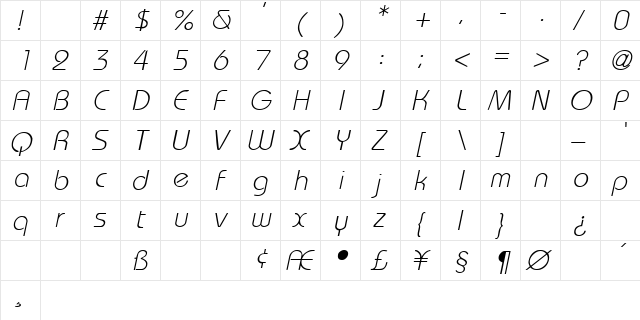
WashingtonMetro Italic Font Preview
WashingtonMetro Italic
Design Context for WashingtonMetro Typeface
WashingtonMetro takes a measured approach to typography — its balanced proportions and neutral character make it a reliable workhorse for both digital and print work. The slanted form adds forward momentum and visual energy.